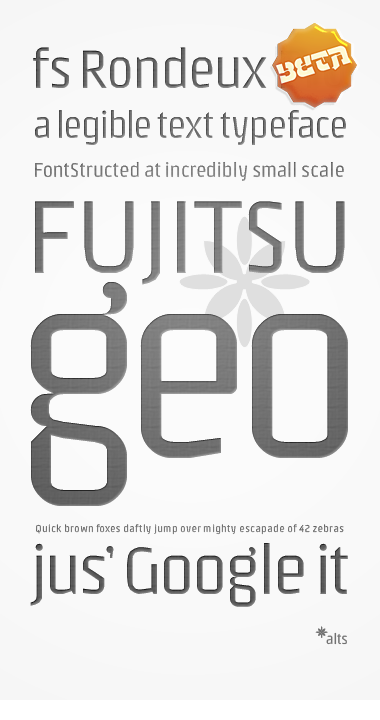
A winning, small-matrix rendition of this super-elliptical monoline sans. If you’d like, please enjoy a private clone to tour the brand-spankin’ new interiors.
I embraced innovation at the expense of imperfection with faux-curve composite stacks. These custom bricks are used to resolve the most glaring proportion issues besetting version 1 (and 2’s) capitals. I risk intermittent aliasing as well as potential inconsistencies in both curvature and stroke contrast. Yet these composite-stack discontinuities (A,C,D,G,J,O,Q,S,U,V) marry unexpectedly well with the extensively used macaroni bricks and remain themselves smooth up to an impressive 72pt.
Manual kerning leaves a lot of room for improvement. The alternates are included mostly for curiosity’s sake. Another work in progress with samples to follow. Feedback is always very appreciated; thanks in advance for it! :)
It was this type battle, that turned me on to the whole phenomenon, after all. I had plenty of brilliant inspiration from true pros and passionate aficionados there to spark my interest.
It became quickly and somewhat disappointingly clear that a custom brick function is necessary to achieve the results I envisioned. This drove me in my original search for a way to stack bricks. Idly wishing I could combine brick shapes, messing with transparent overlays involving sets of dragged bricks, this led to my first unintentionally undo-glitched stack.
How did that happen, right? But I had already worked out the solutions they offered to design problems I encountered initially working at such small scales. Boy, did I clamor for customizable bricks in the early days! ;)
So here’s the proof. It turns out patience is the stronger virtue. Rob always seems to balance ease-of-use and accessibility with rapid integration of complex features. Yet, we now have been given by him a custom brick tool perhaps deceptive in its simplicity. The real potential of stackable composites is quite impressive and offers more than a few twists and turns.
The ‘y’ was a particular trick at this small scale. I feel proud of the unconventional outcome, and pleased you dig it. Born of a combination of approaches used to form ‘a’ and ‘v’, it still shocked me by working out. As usual, screen legibility pushed me in my attempts at improvement.
Your process does raise a lot of questions for me. When I start at text font I'm usually working with bricks I design first or with a fontstruction similar to DJNippa's brick template. This fontstruction contains over 300 bricks - a majority of them custom made. How are you possibly keeping track of what bricks you are using? My approach for text is completely opposite, working in a large scale with minimal brick usage conforming for speed instead of individuality, so this work fascinates and intrigues simultaneously.
But here's what I mean: Paradoxx is 90 grid spaces high and uses only 26 bricks.
It's visually beautiful, but you really need to clone it and look at how it's built.
It's worth to take time to look at every single glyph.
will you make the predecessors(Rondo&Rondeau) of Rondeux available also? Your evolution map displays them nicely.